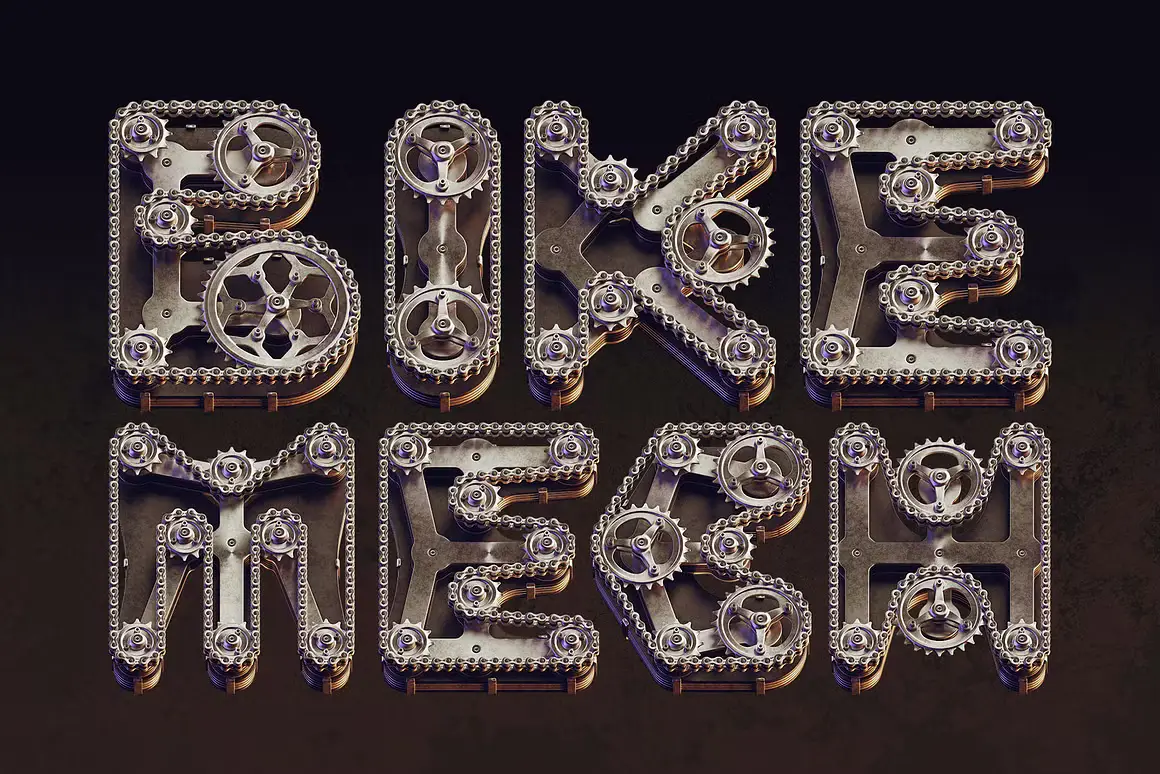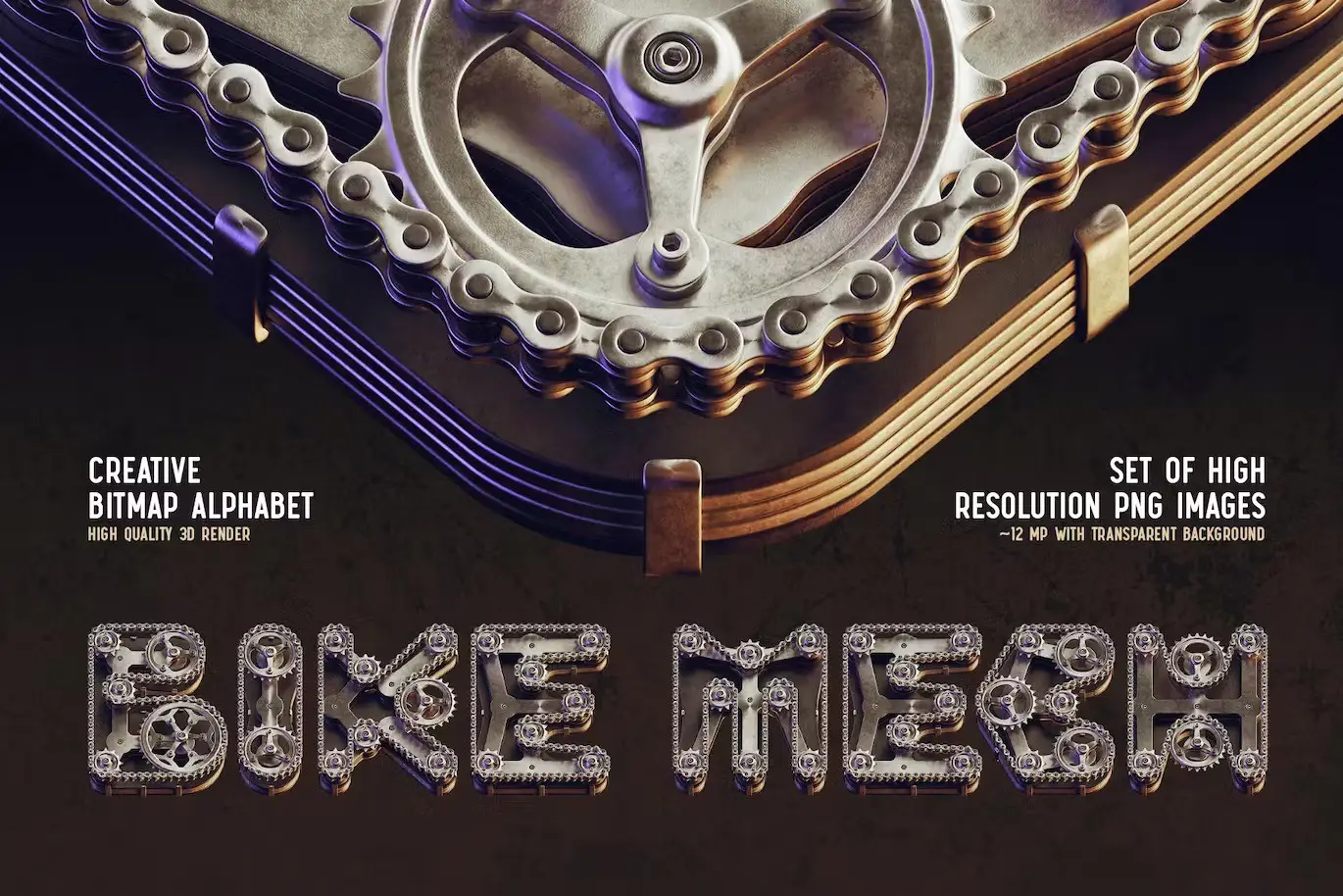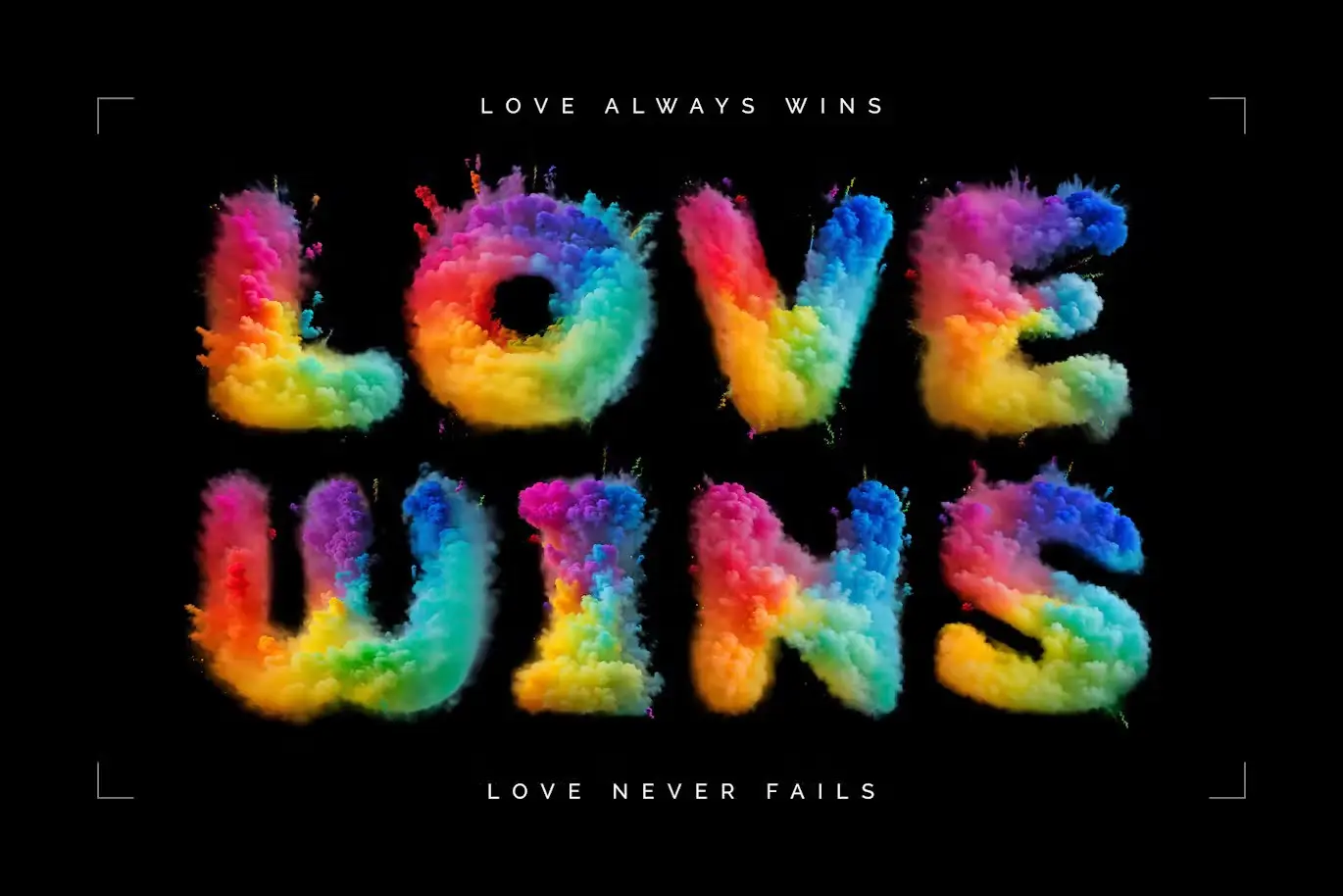
These aren’t just fonts—they’re works of art! 🖼️ Gleb’s collection is perfect for anyone who wants their text to scream “look at me!” From steampunk gears to shiny metallic balloons and magical green glass, every single typeface here is a 3D rendered masterpiece that adds instant depth and wow-factor to your projects. Use them for posters, social media graphics, album covers, or even branding that needs a unique, handcrafted feel. 💥
Bike Mech – Color Bitmap Font
Vroom vroom! 🚴♂️ If you’re into steampunk, industrial design, or just love the gritty beauty of bike gears and chains, this Color Bitmap Font is your new best friend. It’s packed with intricate mechanical details that make every letter feel like a machine part. Perfect for edgy posters or tech-themed projects! 🔧✨
Inflated Foil Font
Shiny, shiny, shiny! 🪞 This Inflated Foil Font looks like it was blown straight out of a luxury balloon factory. The glossy metallic effect is out of this world—think high-end branding, glitzy invitations, and bold headlines that demand attention. It’s pure elegance with a futuristic twist! 💎
Bike Mech
Back for more gears? Yes please! 🛠️ The original Bike Mech is a steampunk style font set that’s 3D rendered to perfection. Every character looks like it was forged from real bike parts—chains, sprockets, and all. It’s gritty, creative, and absolutely perfect for anyone wanting a mechanical, industrial vibe. ⚙️🔥
Rainbow Pow
Let’s get colorful! 🌈✨ Rainbow Pow is a vibrant smoky powder font that feels like a party on your screen. The bright colors and soft, powdery texture make it ideal for playful projects, kids’ content, or any design that needs a happy, energetic burst of life. It’s like confetti for your typography! 🎉
Bubzle — Creative Design Set
Bubbles, bubbles, and more bubbles! 🫧✨ Bubzle is a delightful abstract font-based design set inspired by the smooth, playful shapes of bubbles. It’s less a traditional font and more a creative playground for your imagination. Use these bubbly shapes for whimsical posters, logos, or art projects that need a soft, dreamy feel. 🎈
Inflated Foil – Color Bitmap Font
More foil goodness! 🎈✨ This version of the Inflated Foil is a color bitmap font that brings that gorgeous 3D balloon look straight into your designs. The glossy metallic effect is simply stunning—imagine it on luxury branding, event invitations, or anything that needs a touch of high-end bling. 💫
Bike Mech – Color Bitmap Font
Can you ever have too many mechanical fonts? Nope! 🛞 This Bike Mech color bitmap version is a must-have for any fan of industrial aesthetics. The detail on each letter is insane—gears, chains, and all the steampunk vibes you could want. It’s a total showstopper for any design project. ⚡
Green Eyes – Bitmap Color Font
Emerald magic is real! 🐱✨ The Green Eyes font glimmers like sparkling green glass with a mesmerizing color dispersion effect. It’s so vibrant and hypnotic that your text will literally glow. Perfect for fantasy designs, nature-themed projects, or anything that needs a mystical, jewel-toned touch. 💚
Green Eyes – Bitmap Color Font
Another dose of green loveliness! 🌟 This version of Green Eyes is equally stunning, with that same sparkling glass texture and vibrant green hue. It’s like having liquid emeralds form your words—so elegant and eye-catching. A true gem for any typography lover. 💎
Chrome Lights – Bitmap Color Font
Last but definitely not least, let there be light! 🌞✨ Chrome Lights is a bold, beveled 3D rendered typeface with shiny, reflective surfaces that scream modern and futuristic. It’s like your letters are made of polished metal, catching every beam of light. Ideal for tech startups, sleek branding, or any project that needs a cutting-edge look. 🚀
And there you have it, folks! 🎉 The Gleb Guralnyk Collection is a treasure trove of creativity—offering everything from steampunk gears and metallic balloons to magical green glass and shiny chrome. These fonts aren’t just tools; they’re conversation starters. So go ahead, download a few, and let your typography do the talking! Your next masterpiece is just a font away. 💫